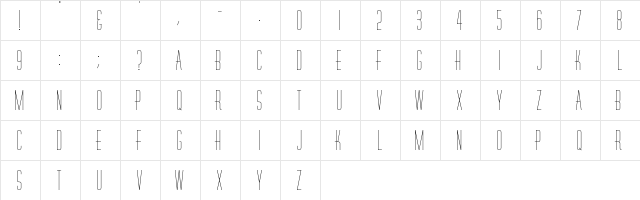
RhyOlver Regular
Design Context for RhyOlver Typeface
RhyOlver offers clean, dependable letterforms without strong stylistic allegiance, making it a practical choice for designers who need flexibility.